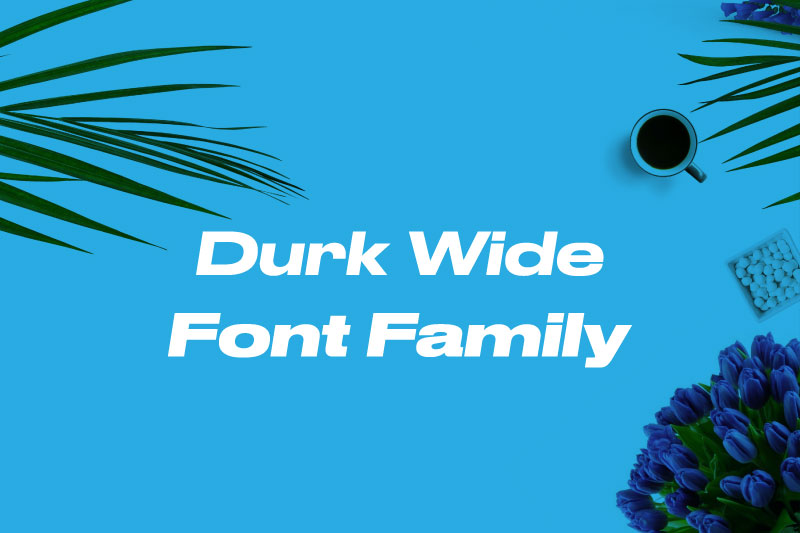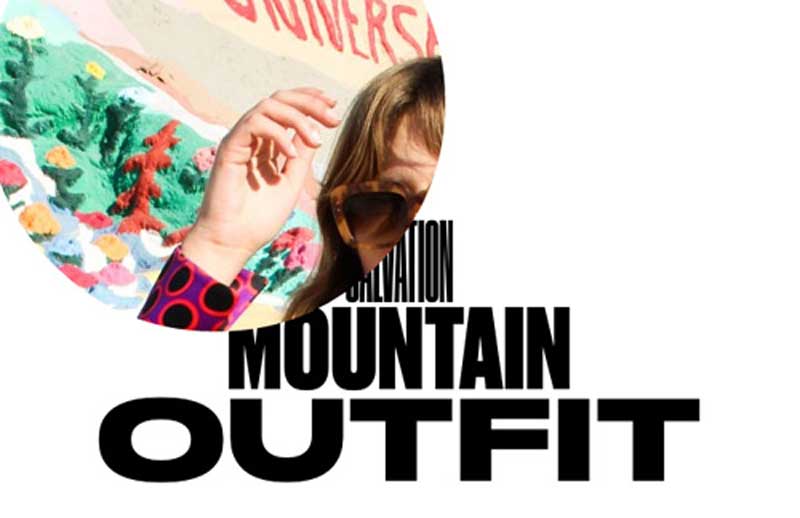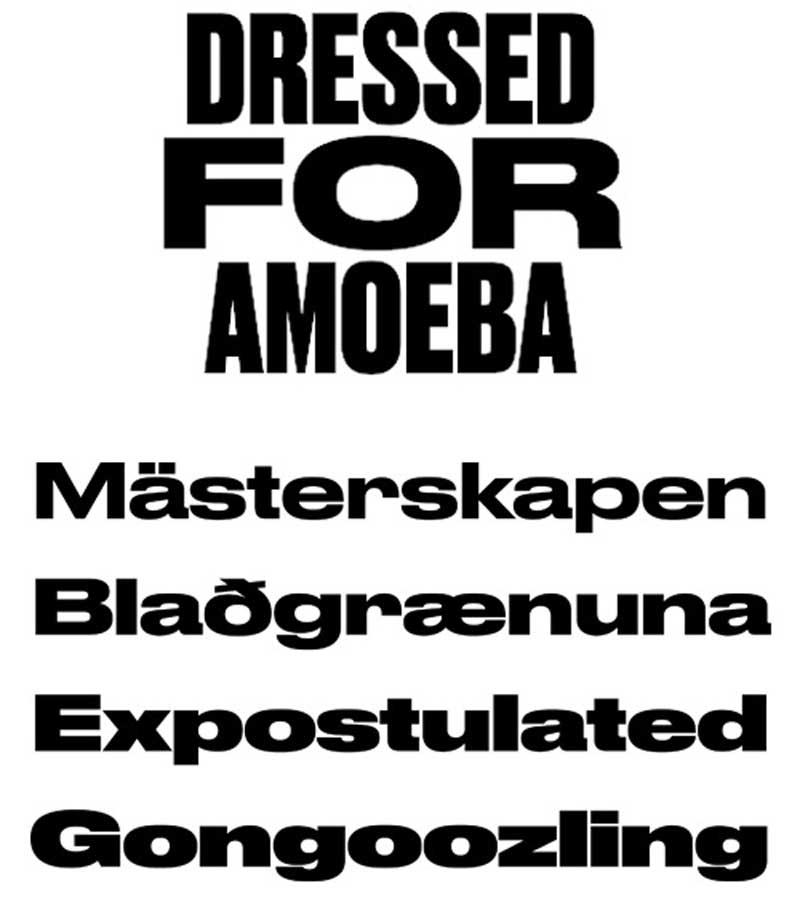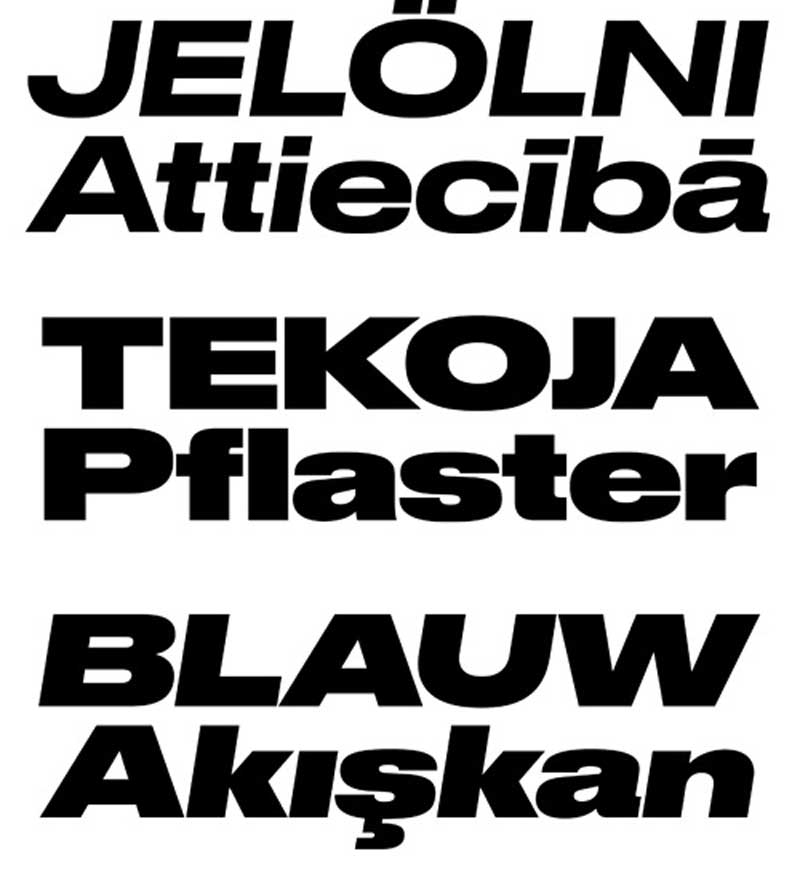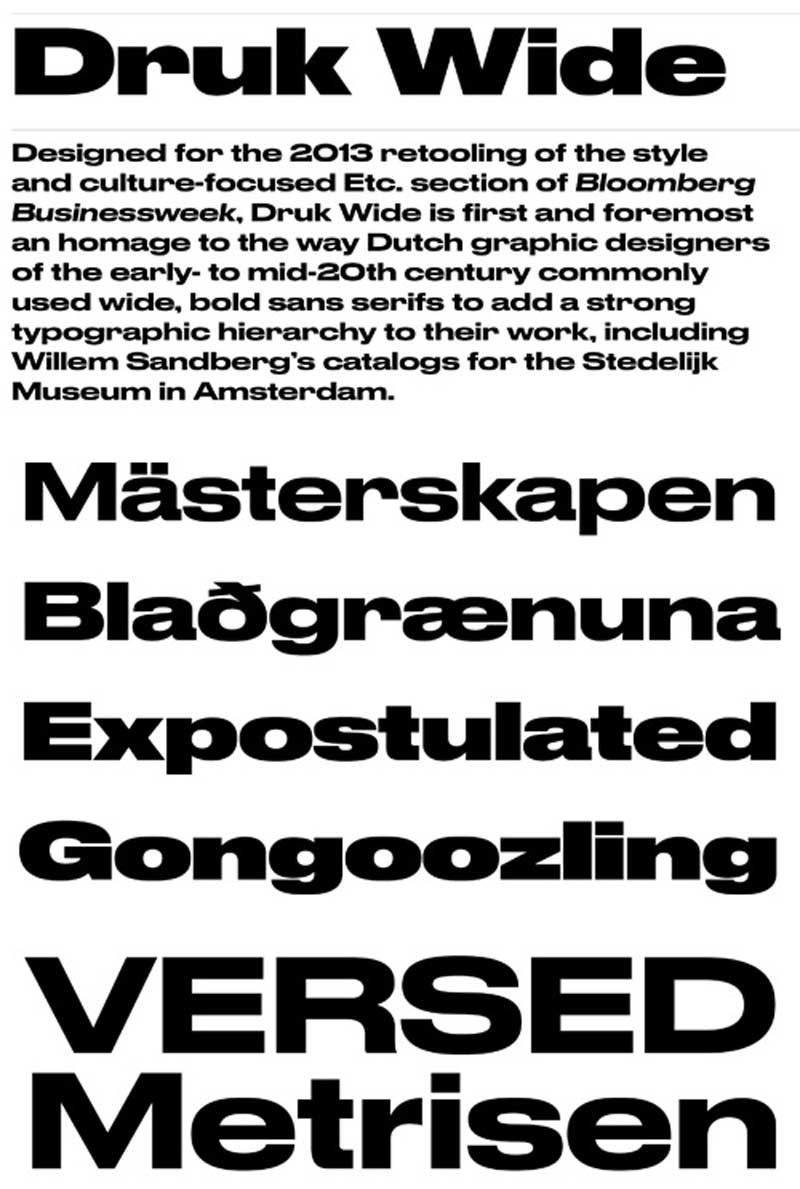
Druk Wide Font Family
Designed for the 2013 retooling of the style and culture-focused Etc. section of Bloomberg Businessweek, Druk Wide is first and foremost an homage to the way Dutch graphic designers of the early- to mid-20th century commonly used wide, bold sans serifs to add a strong typographic hierarchy to their work, including Willem Sandberg’s catalogs for the Stedelijk Museum in Amsterdam.
Like many typefaces, Druk has its roots in typefaces from the past: the sans serifs created in the 19th century onwards and popularised in the 20th century for expressive display typography. These were mainly used for posters and editorial design and were often the loudest voices in the typographic spectrum. Unlike many new typefaces, Druk’s forms are inspired by the ways in which type was used in the past, rather than the way the typefaces themselves were drawn or cut.